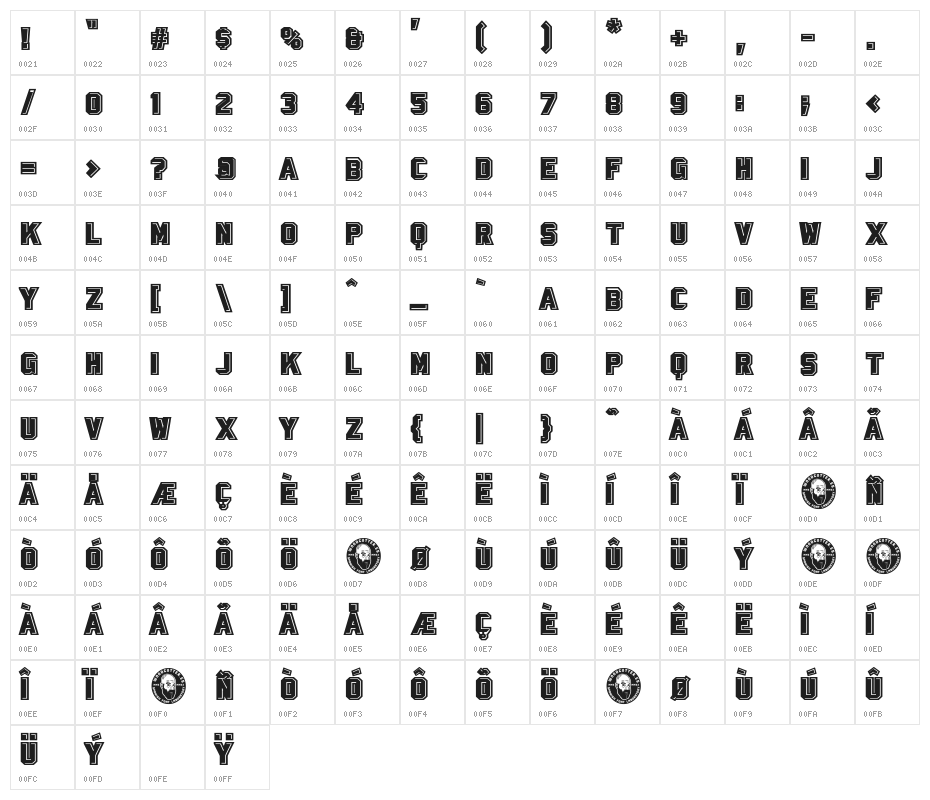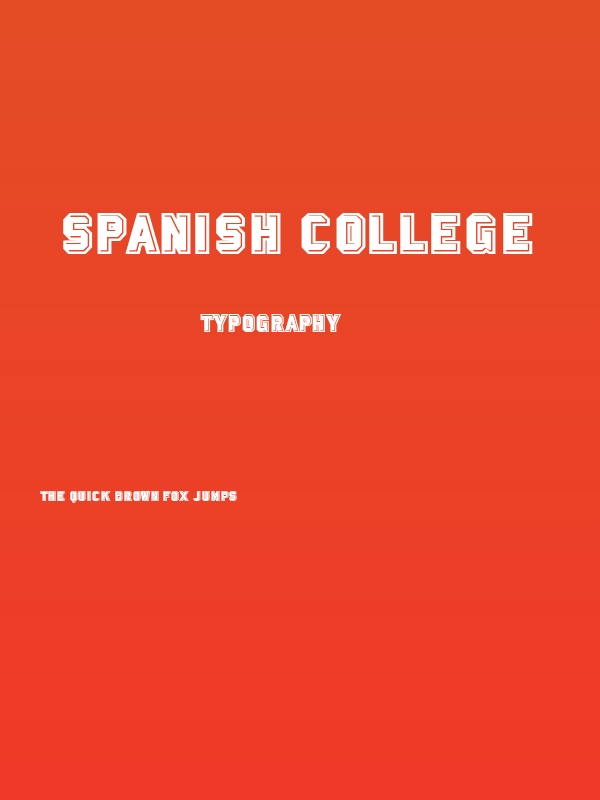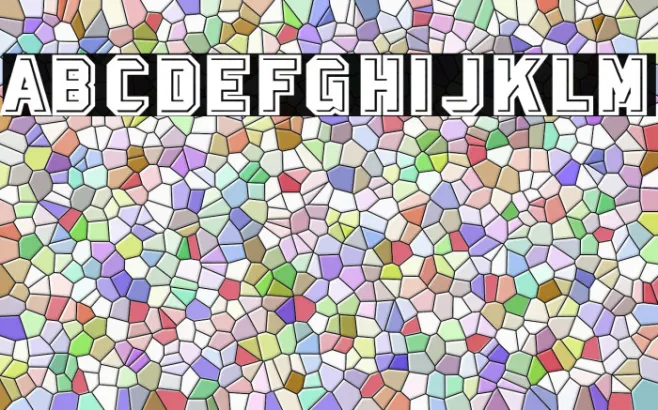
Spanish College Font
Spanish College Description
This font features a bold, collegiate style with a strong, impactful presence. The characters are outlined with a thick black border, giving them a three-dimensional appearance. The design is reminiscent of traditional varsity lettering, often seen on sports jerseys and college apparel. Each letter and number is crafted with precision, maintaining a consistent width and height, which enhances readability. The font's geometric structure and sharp angles contribute to its authoritative and robust aesthetic. It is well-suited for designs that require a sense of strength and tradition.
| Proposed Projects | Ideal for sports team branding, college merchandise, posters, and event promotions. |